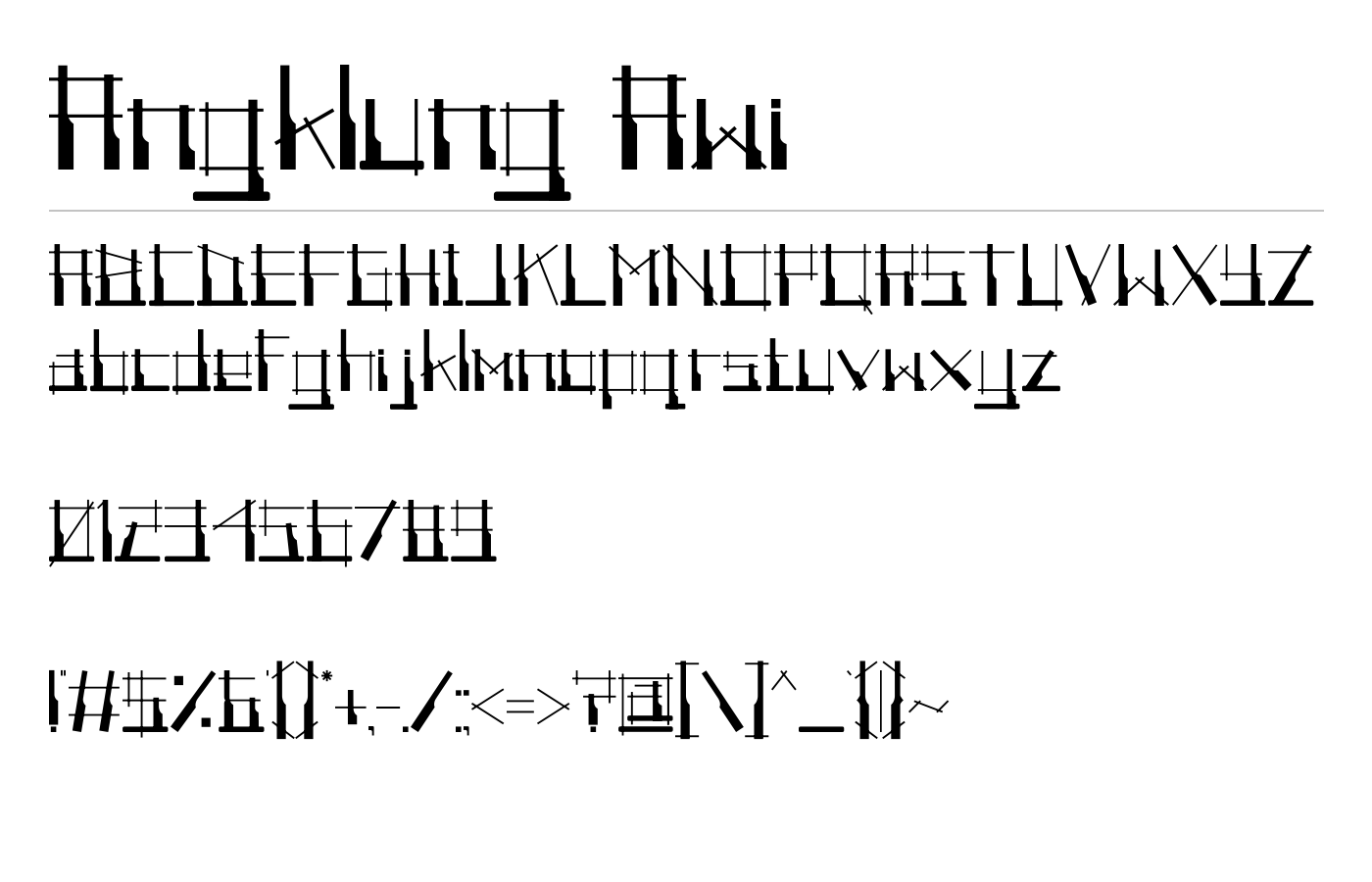
Angklung Awi is a distinctive, experimental sans serif font characterized by a geometric, almost mechanical structure with varying stroke weights that create a unique blend of thickness and thinness. Its angular, modular design feels modern and technical, making it well-suited for creative projects seeking a futuristic or avant-garde impression, especially in logos, posters, and digital media where attention-grabbing, artistic text is desired. This font's intricate line work and unconventional forms give it a highly stylized personality that stands out in contemporary, edgy design contexts.
Angklung Awi Font
About Angklung Awi Font